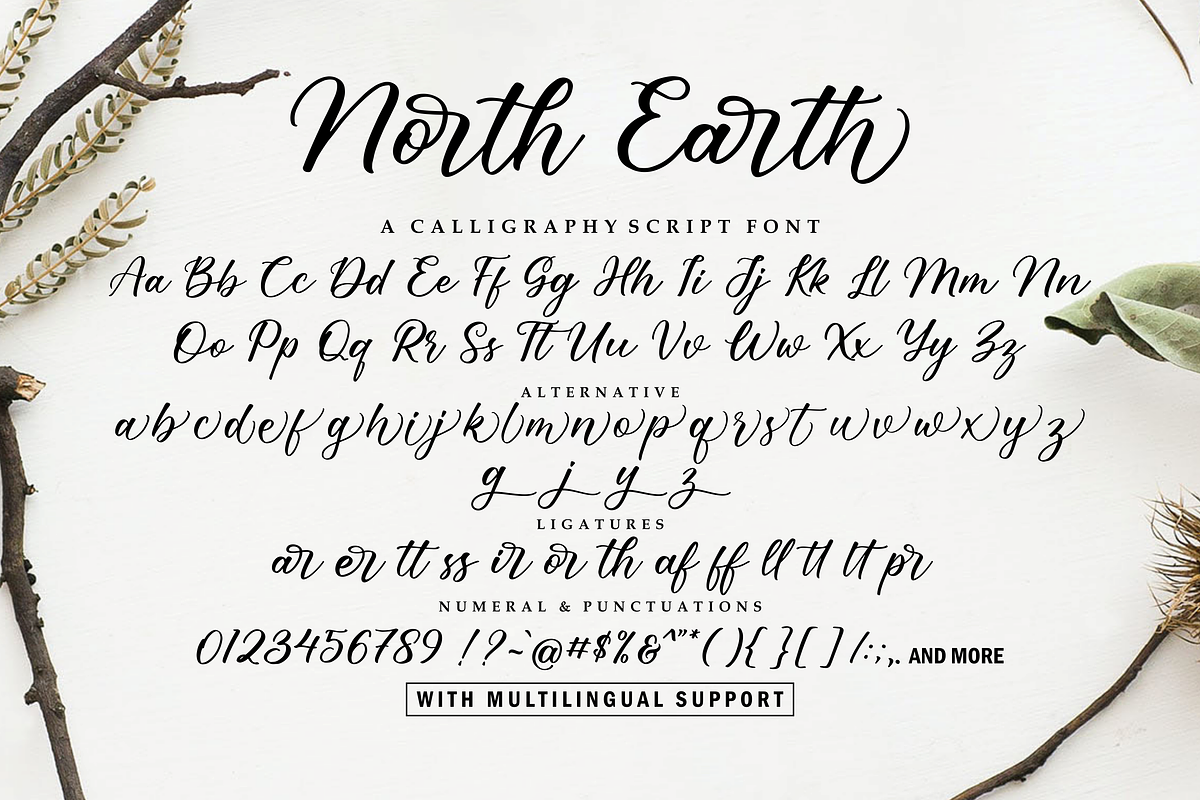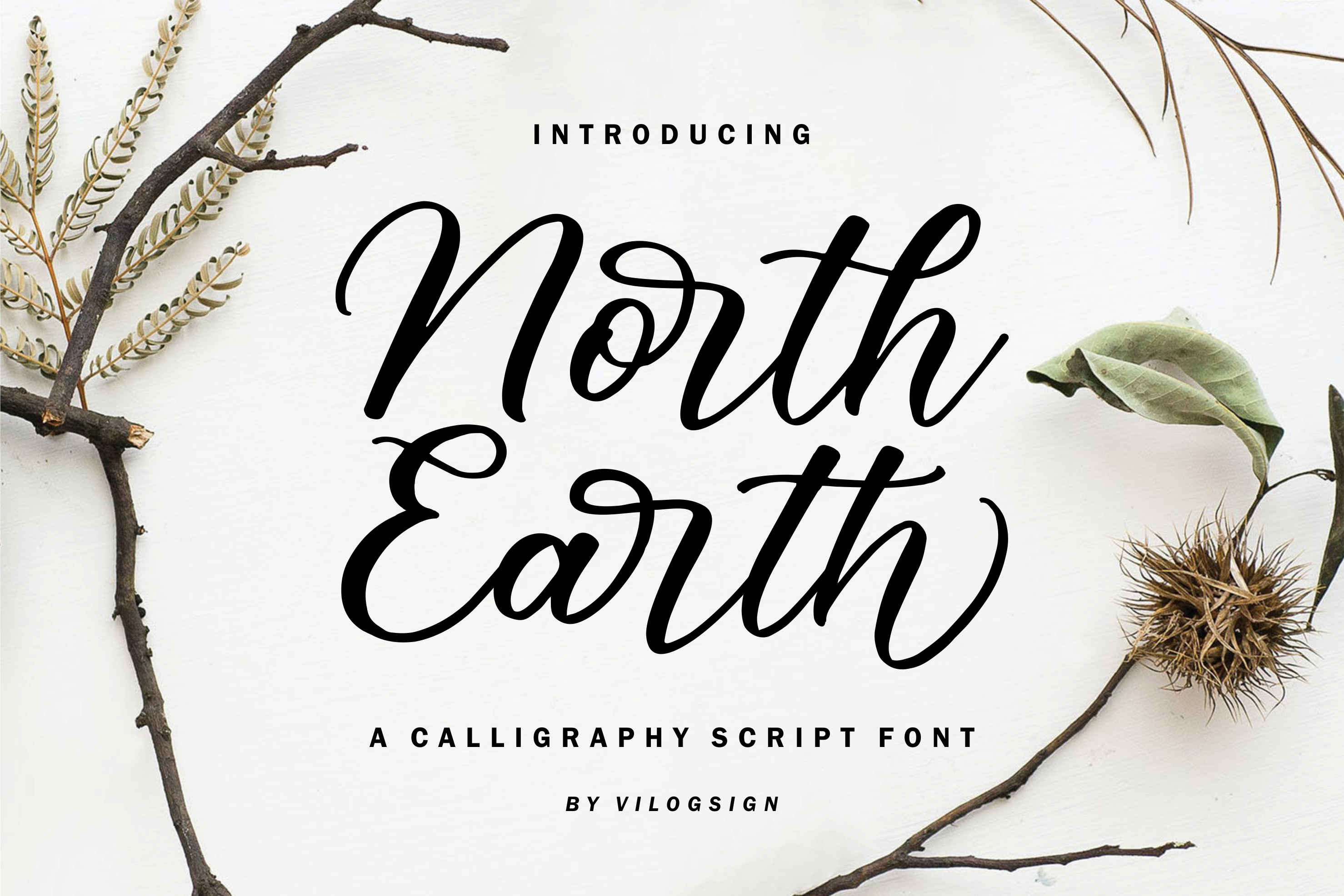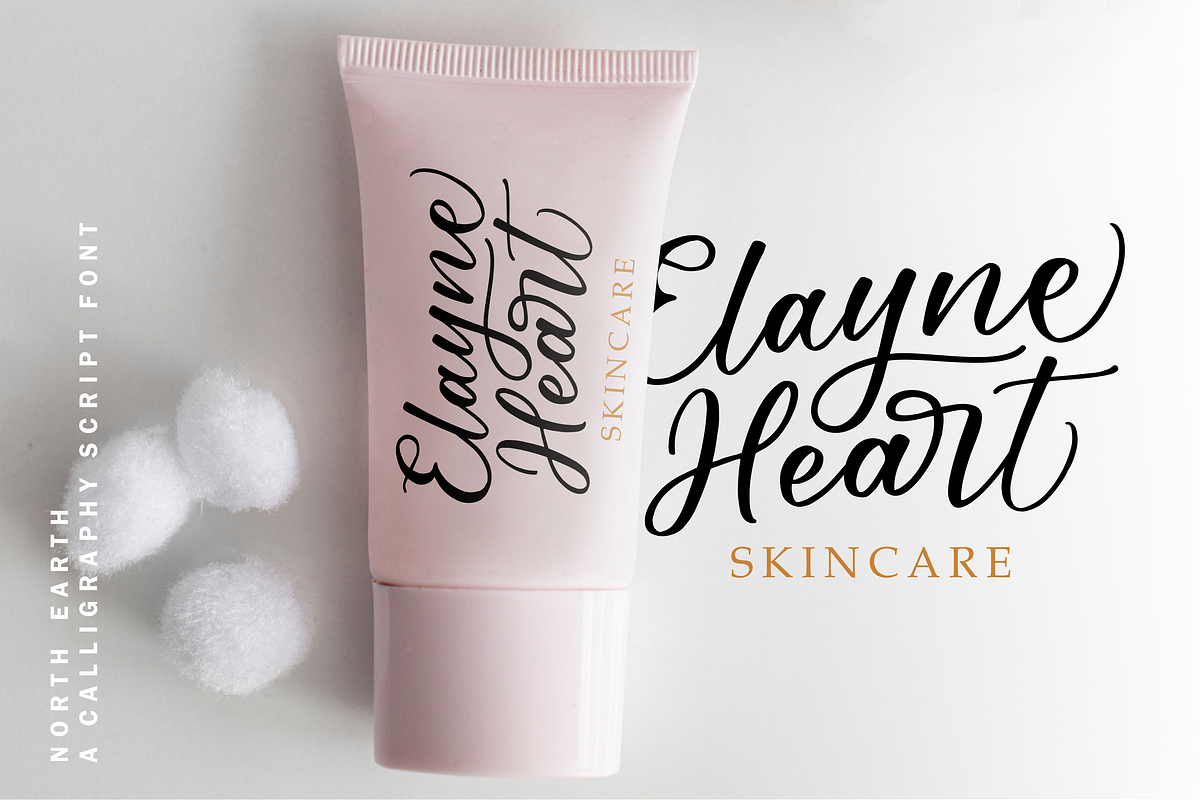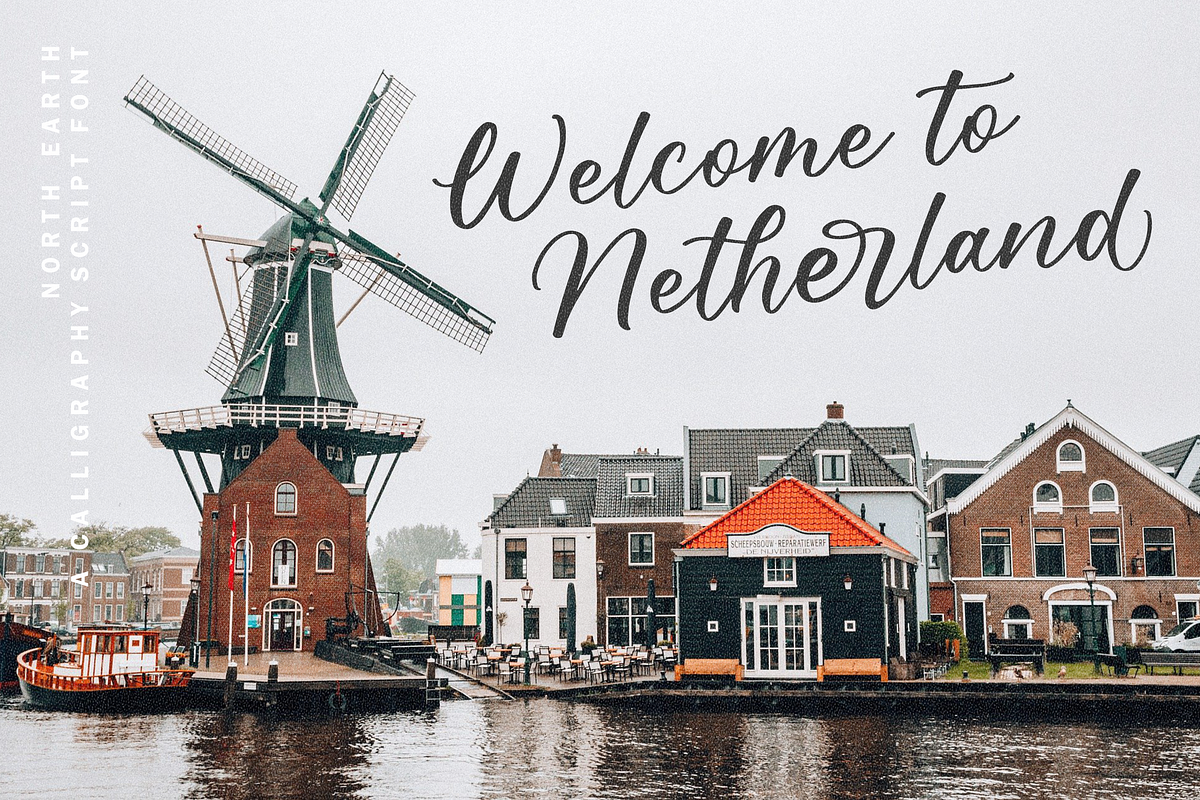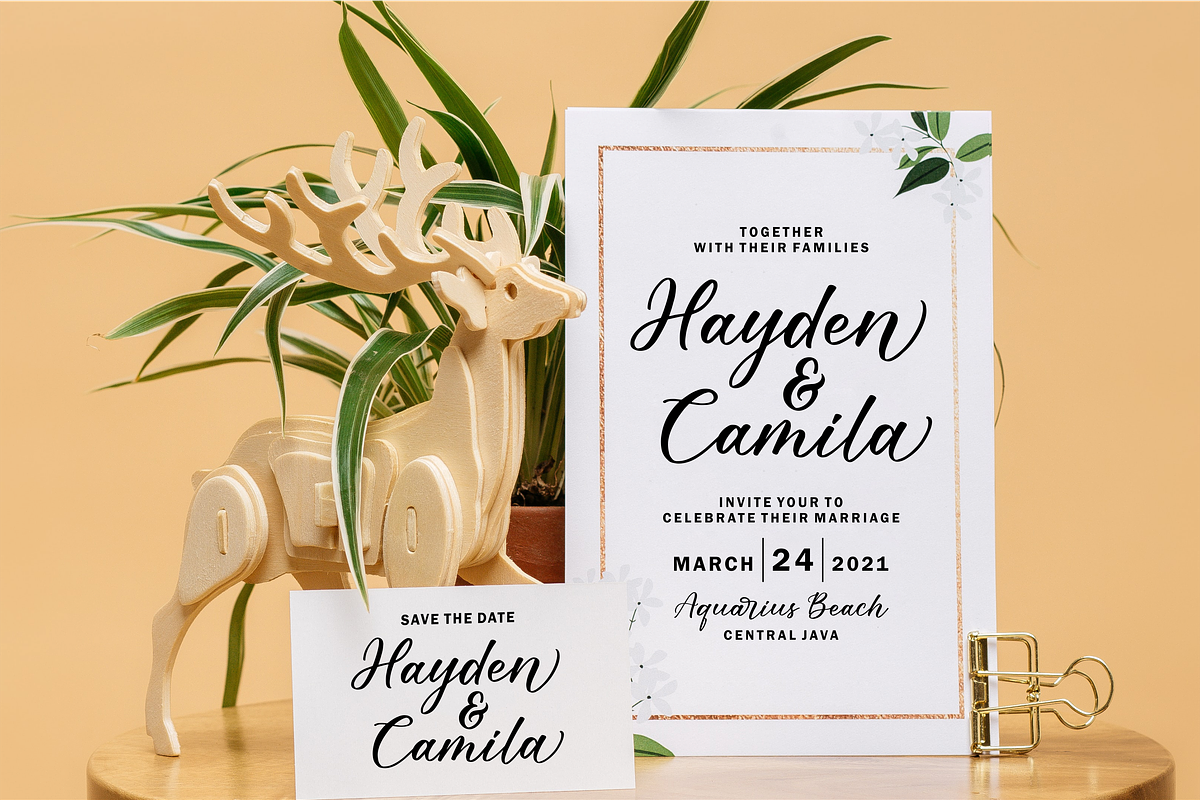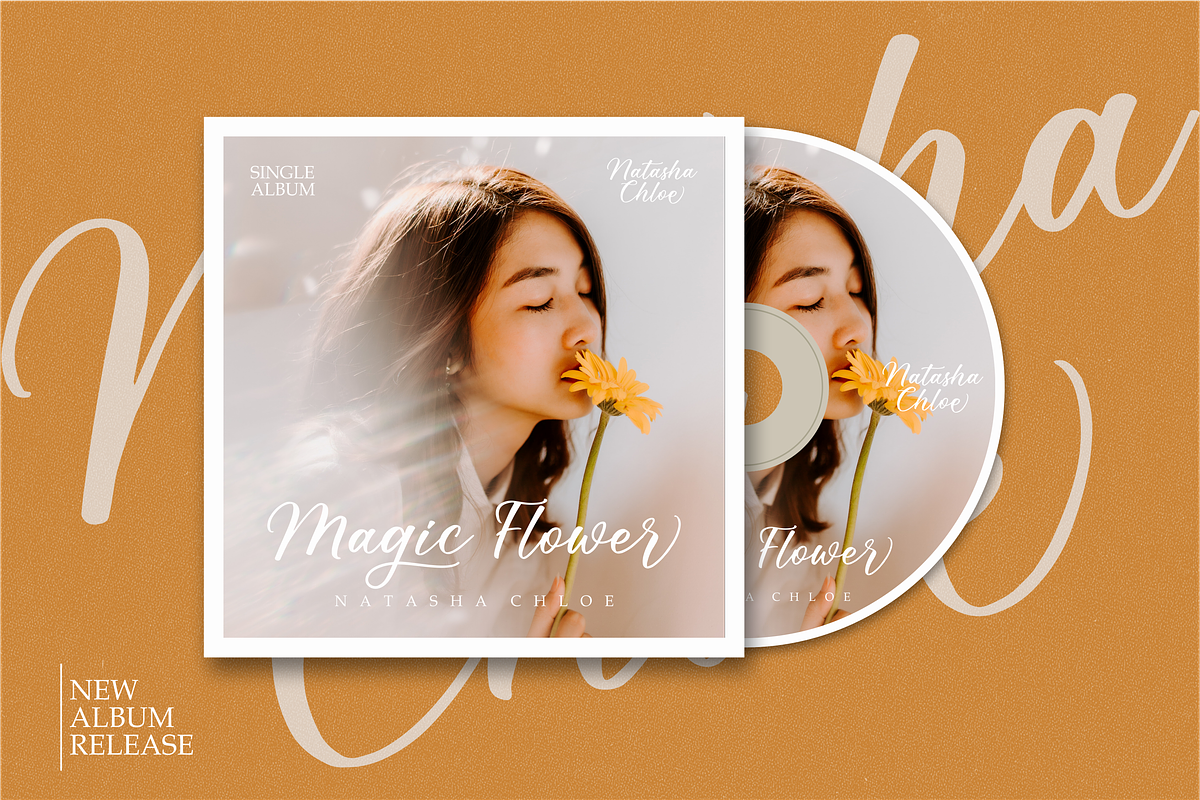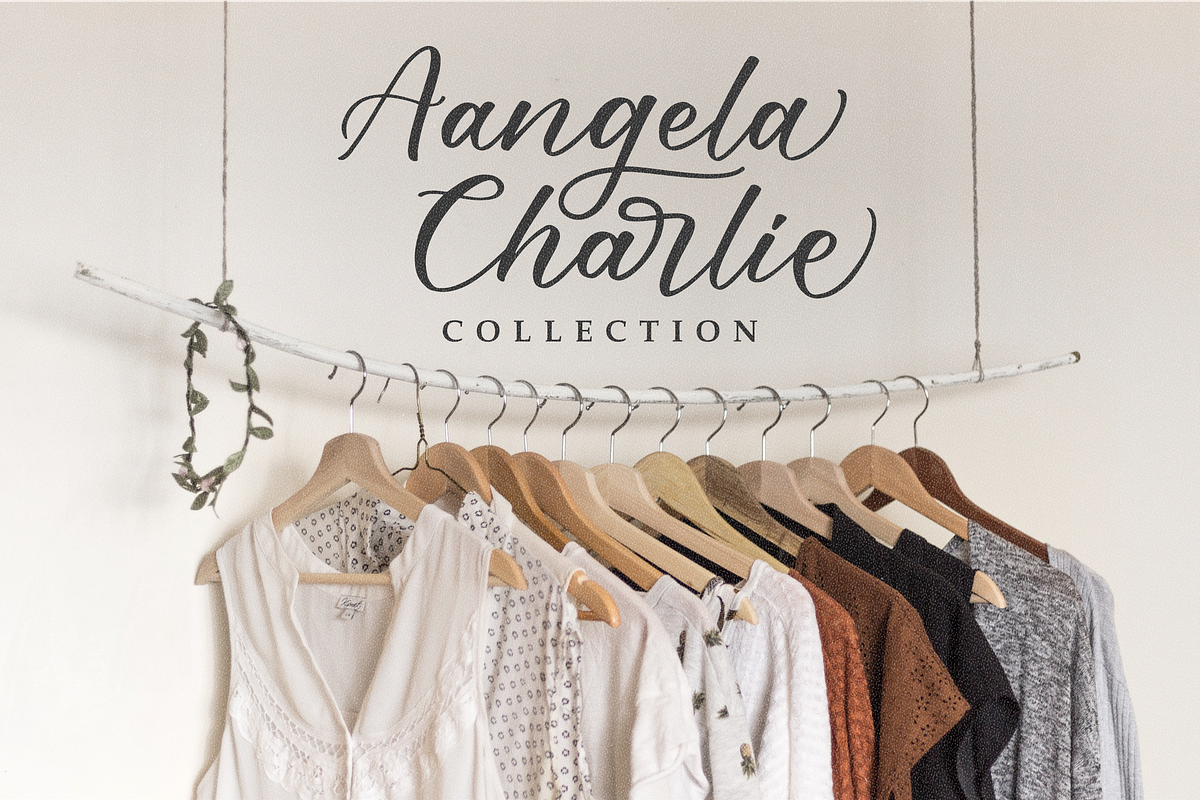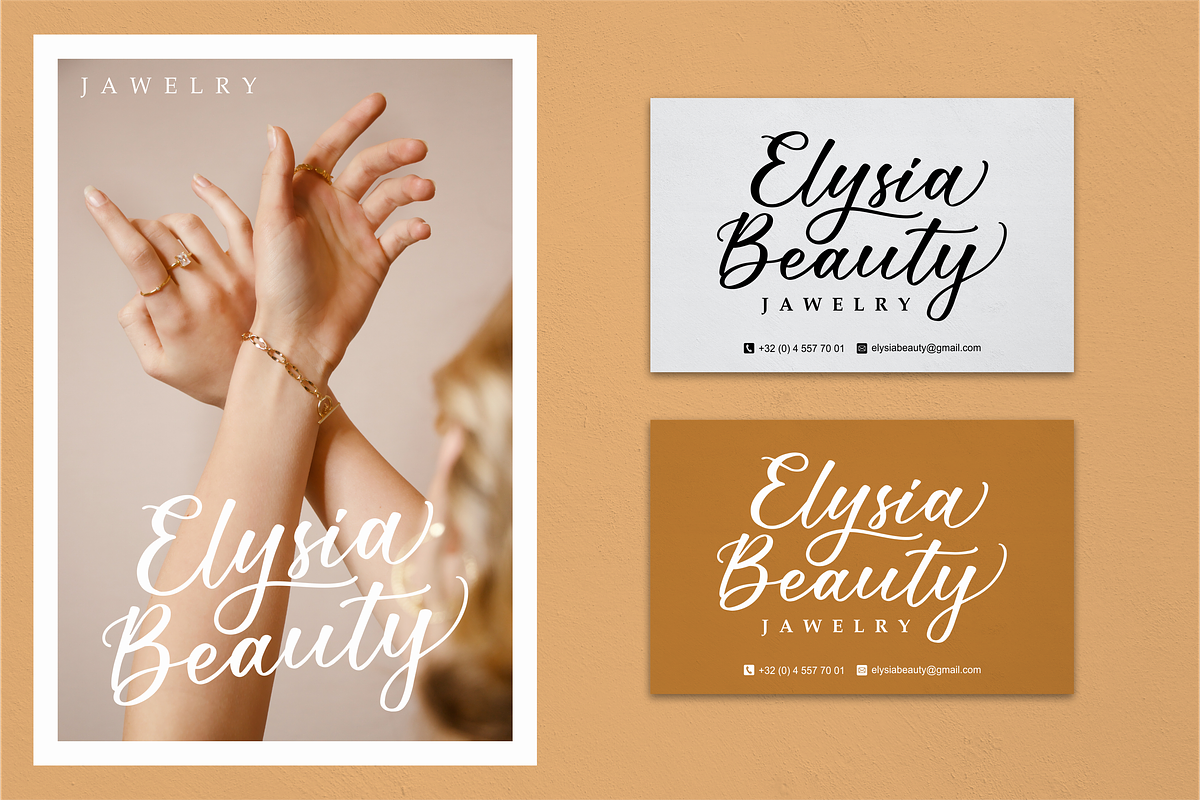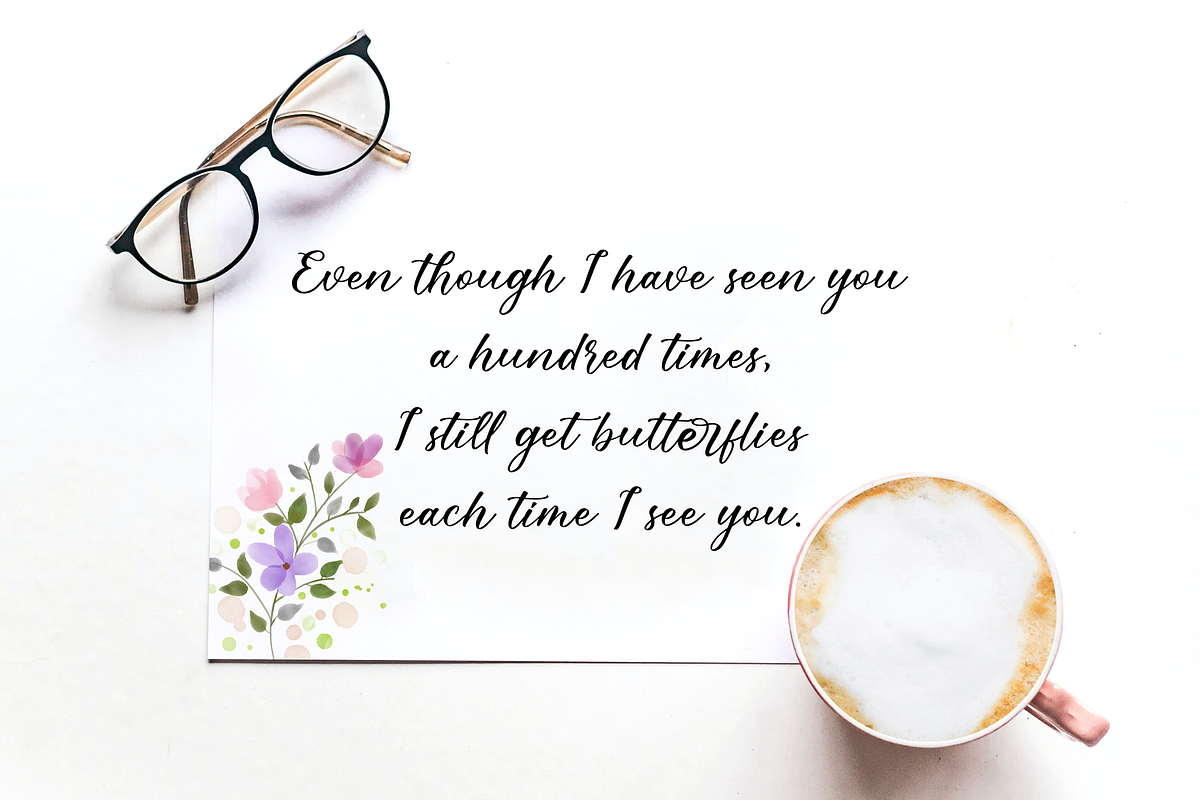
North Earth a Calligraphy Font
Hi,,, Introducing "North Earth" a Chic Calligraphy Script Font!!!
Made with very serious With Ending, and another altenative make to make this font unique, chic, beautiful So perfect for your need. This font is very good with multilingual support to complete your need. Very suitable to make a branding, Poster, magazine, greeting card, fashion, quotes, logo, packaging, and other.
- Ending